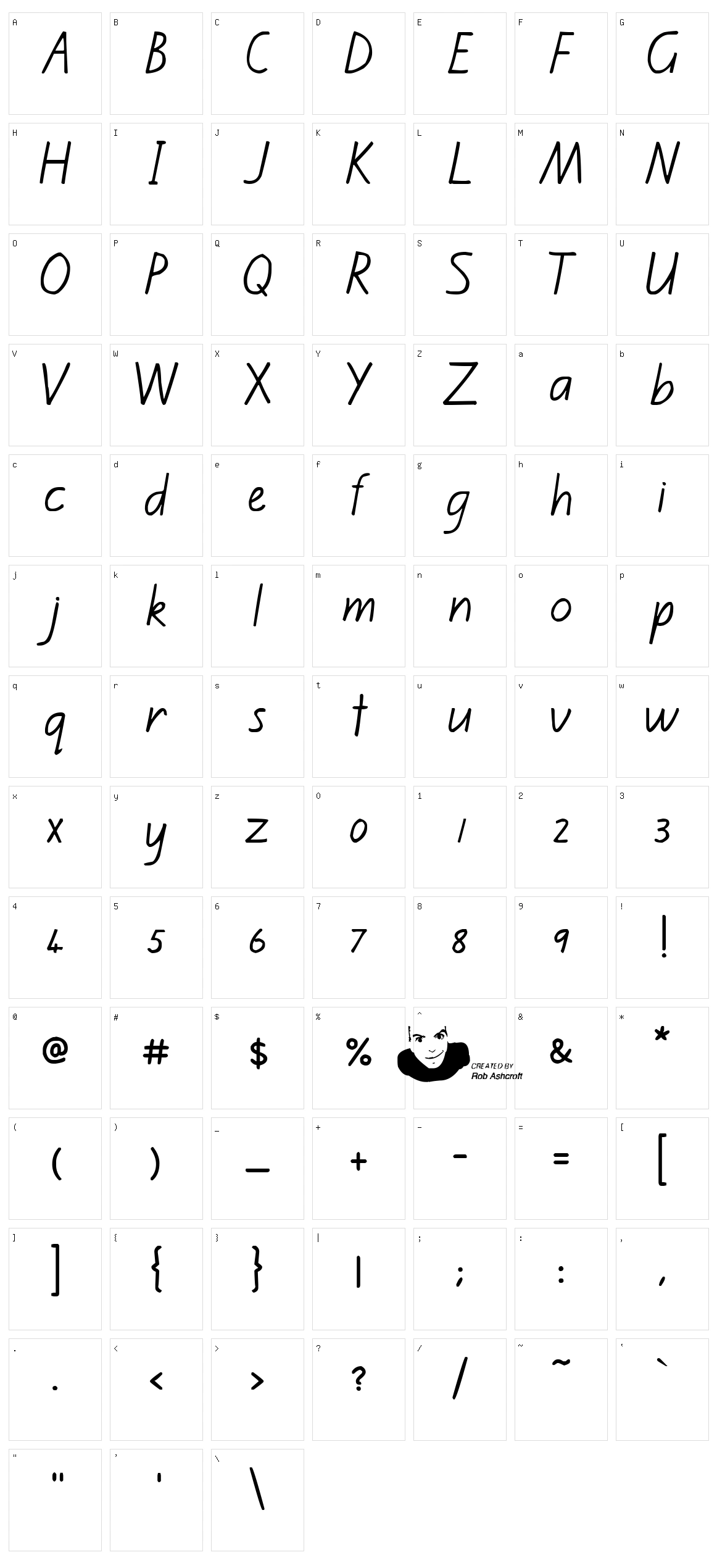
The free font Kiwi School Handwriting is carefully designed by Rob Ashcroft, showcasing a thoughtful balance of creativity and usability and falls under the Script font style. When you download the ZIP file, it contains only 18.16 KB of font files, making it lightweight and quick to download. Please review the license details below to understand permitted usage and distribution rights. If license information is not available, we recommend using this font for personal projects only or contacting the author directly for commercial usage permissions.